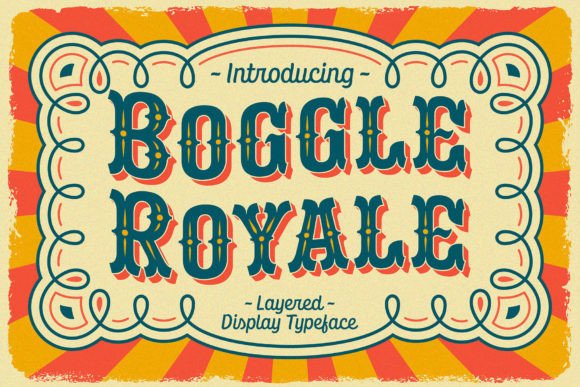
Journey through time with Boggle Royale, a font family that encapsulates the captivating charm of vintage circus and festival signage. Designed with meticulous attention to detail, Boggle Royale captures the essence of yesteryear, evoking nostalgia and a sense of timeless wonder. Its playful and eye-catching characters bring a touch of whimsy and enchantment to any project, inviting you to create designs that resonate with audiences of all ages.
Boggle Royale is not just a font; it's a gateway to a bygone era, where vibrant colors and bold typography ruled the day. Its layered design adds depth and texture to your creations, allowing you to craft designs that exude personality and captivate the imagination. From posters and flyers to packaging and branding, Boggle Royale effortlessly adds a touch of vintage flair and sophistication.
Unleash your creativity and transport your audience to a realm of enchantment with Boggle Royale. This versatile font family is perfect for designers seeking to create logos, posters, branding materials, social media graphics, and more. Its bold and distinctive characters demand attention, making your designs stand out from the crowd.
Boggle Royale is a font that speaks to the heart, evoking emotions and creating a lasting impression. Its vintage charm and playful spirit make it an ideal choice for projects that aim to evoke a sense of nostalgia and captivate audiences with their timeless appeal.
Embrace the magic of Boggle Royale and embark on a creative journey like no other. Let your imagination soar as you bring captivating designs to life, leaving your audience spellbound and yearning for more.